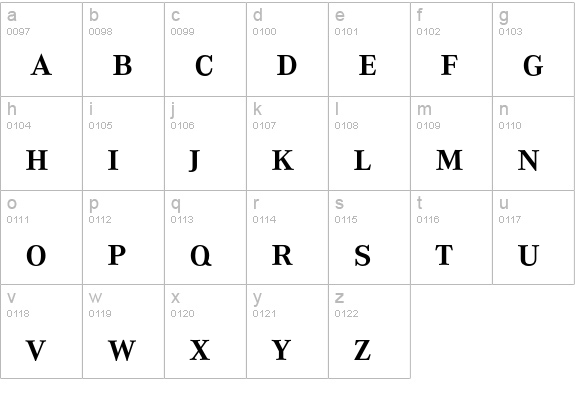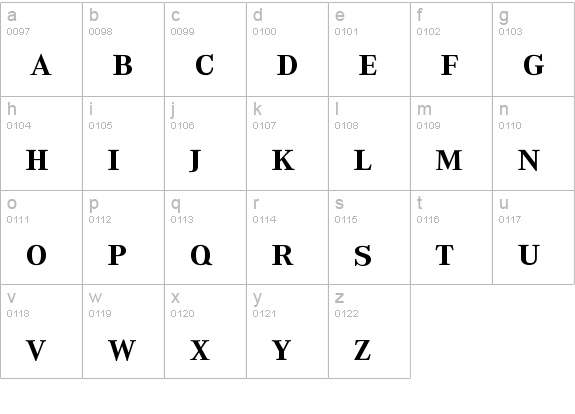
CorporateASC-Demi is a sub-bold, structured variant in the CorporateASC typeface family \xE2\x80\x94 well suited to sub-headlines and emphasised passages.
CorporateASC-Demi font is a modern and sleek typeface that exudes professionalism and sophistication. With its bold and strong appearance, it is perfect for corporate branding, advertisements, and any design project that requires a clean and polished look. The clean lines and sharp edges of this font make it highly versatile and easy to read, ensuring that your message comes across clearly and effectively. What makes CorporateASC-Demi font even more appealing is that it is available for free download at FontsMarket.com. This means that you can access this high-quality font without any cost, making it a valuable asset for designers, businesses, and creatives alike. Don't miss out on the opportunity to enhance your projects with the elegance and professionalism of CorporateASC-Demi font - download it for free today!